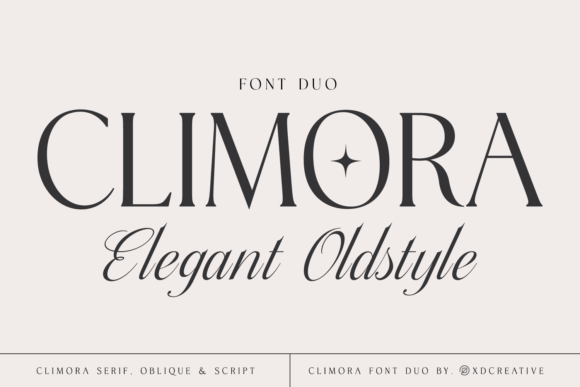
Behold the union of elegance and finesse: Climora Duo Font, a serif typeface that exudes grandeur. Designer xdCreative meticulously crafted this font to embody femininity and old-style charm, with a complementary script that adds an air of sophistication.
Unleash your creativity with Climora Duo Font, the ultimate companion for crafting designs that captivate and inspire. Whether you're working on logos, branding, invitations, stationery, wedding designs, or social media posts, this font will elevate your creations with its timeless beauty.
Impress your audience with advertisements, quotes, product packaging, labels, or photography that radiates luxury and elegance. Climora Duo Font transforms ordinary designs into extraordinary masterpieces, leaving a lasting impression on your customers or audience.
Make your special events truly unforgettable with Climora Duo Font. From invitations to programs, this font will add a touch of sophistication and elegance to every element of your celebration. Imagine your wedding invitations adorned with Climora Duo Font, creating a sense of anticipation and excitement for your special day.
Explore the world of magazine layouts with Climora Duo Font, transforming ordinary text into visually captivating masterpieces. Create layouts that demand attention, leaving a lasting impression on your readers. The unique combination of serif and script in Climora Duo Font adds depth and dimension to your designs, making them stand out from the crowd.
With Climora Duo Font, you can:
- Elevate your designs with a touch of femininity and old-style charm.
- Create logos and branding that convey luxury and sophistication.
- Design wedding invitations and stationery that exude elegance.
- Add a touch of sophistication to your social media posts and advertisements.
- Transform ordinary quotes into visually stunning pieces of art.
- Create product packaging and labels that demand attention on shelves.
- Add a unique touch to your photography with elegant watermarks.
- Make special events unforgettable with invitations and programs that radiate luxury.
- Design magazine layouts that captivate your readers with visually stunning typography.